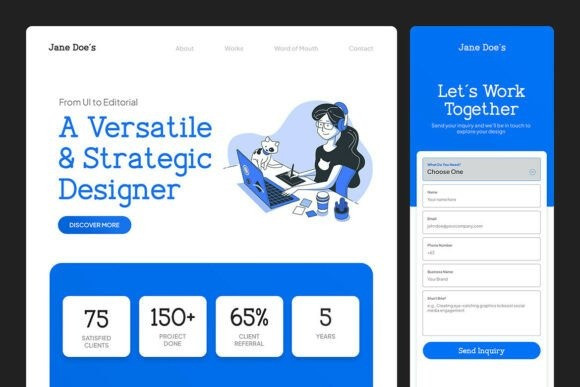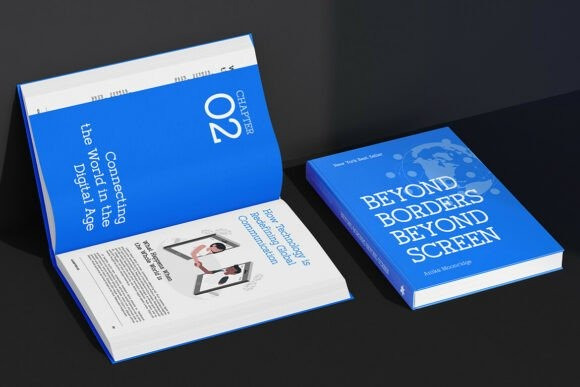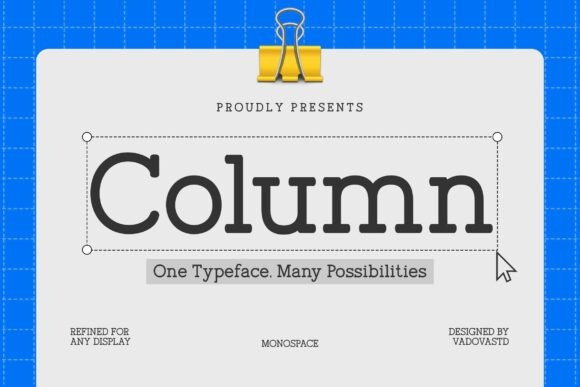
Column Font
Column Font is a modern monospace serif font designed for professional and modern applications. With its geometric structure and consistent rhythm, it offers clarity and precision in both display and editorial use. The font strikes a balance between corporate elegance and minimalist charm, making it suitable for tech, branding, or interface design. Column supports multilingual characters, punctuation, and symbols, ensuring global usability. Its structured yet soft character gives it a sophisticated feel without sacrificing readability.